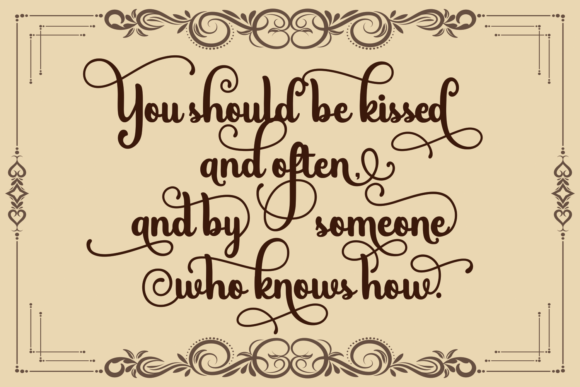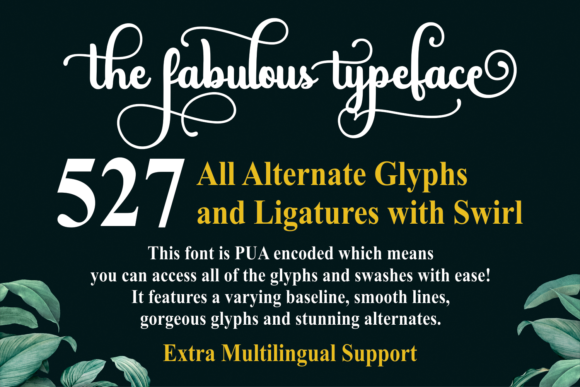
Margaretha Font
db-ku.com - Script & Handwritten -- Margaretha is an elegant script font with a contemporary atmosphere and impeccable form, inspired by timeless classic calligraphy. It has beautiful and well balanced characters and as a result, it matches a wide pool of designs. Margaretha is PUA encoded which means you can access all of the glyphs and swashes with ease!